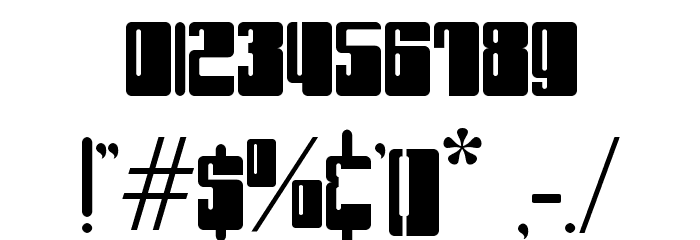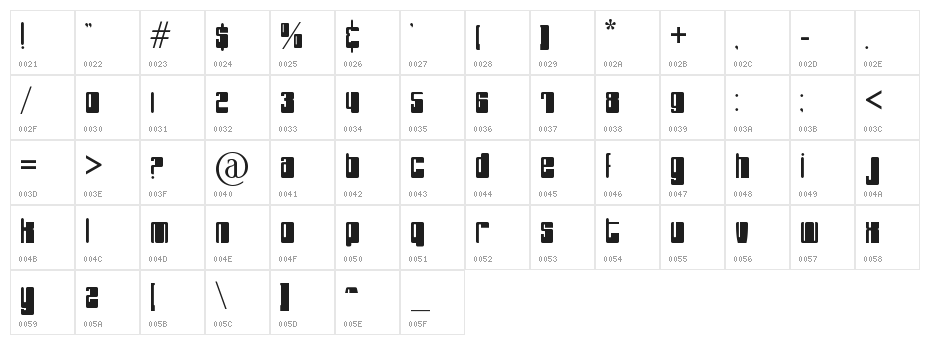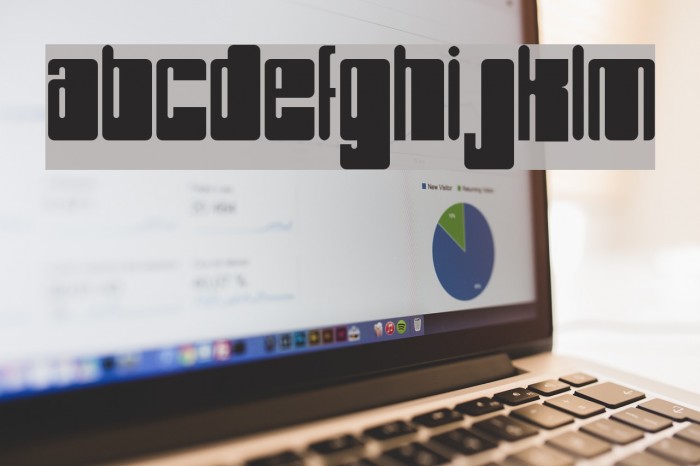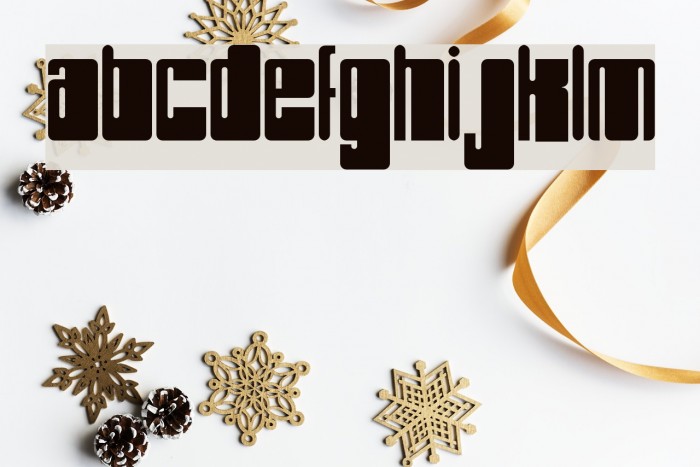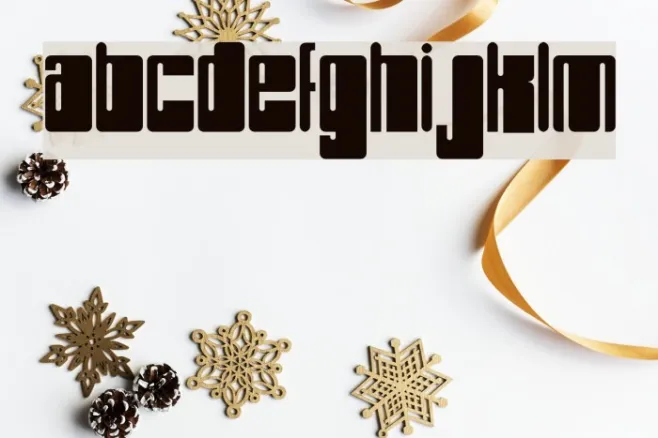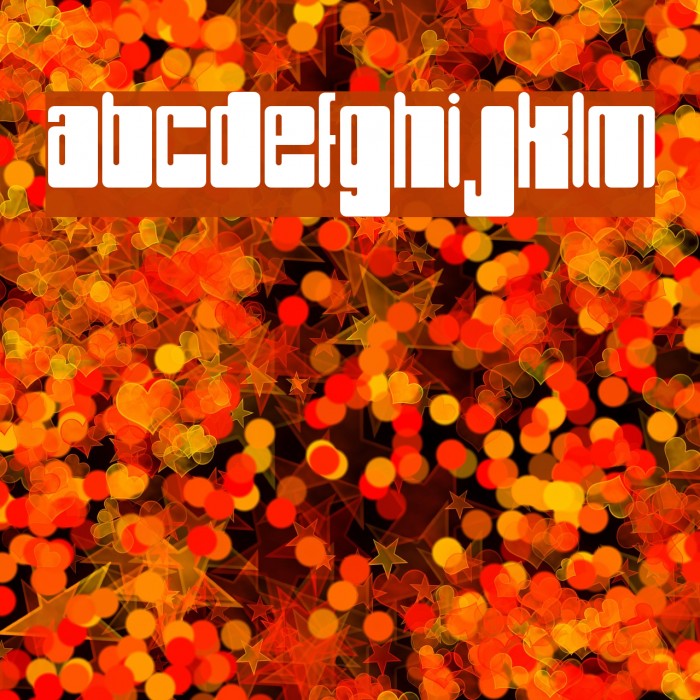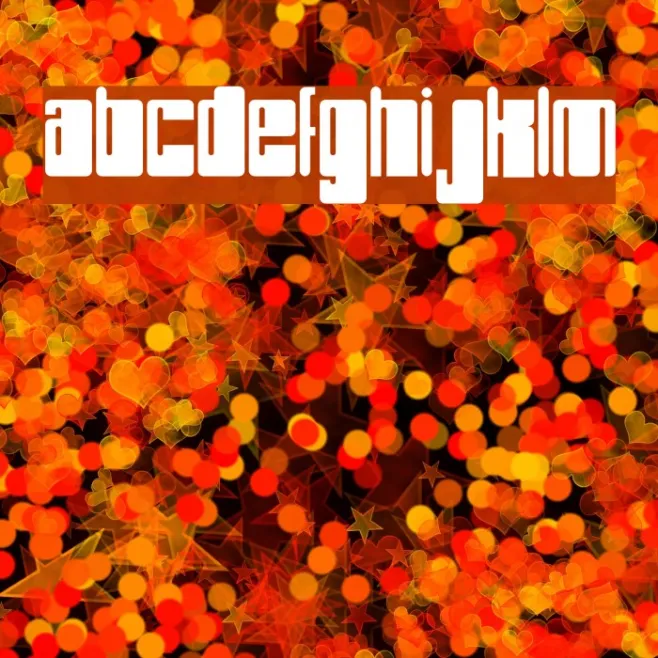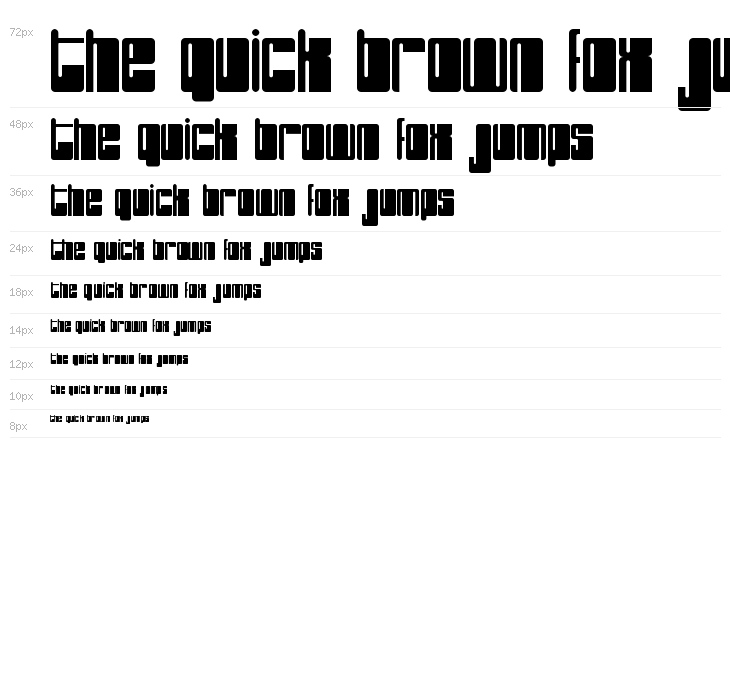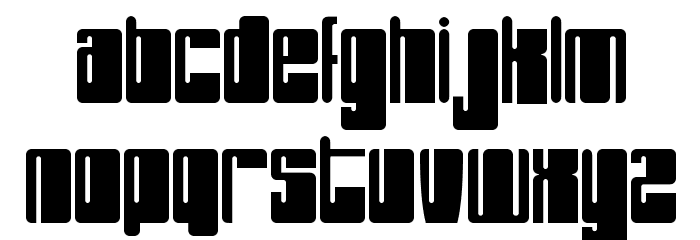
PHuture Font
PHuture Description
This font features a bold and geometric style with a distinctly modern and futuristic appearance. The characters are blocky and robust, with a uniform thickness that gives them a strong presence on the page. The design is characterized by its square shapes and rounded edges, creating a harmonious balance between sharpness and smoothness. The uppercase and lowercase letters maintain a consistent style, while the numerals and special characters complement the overall aesthetic. This font is ideal for projects that require a contemporary and eye-catching look.